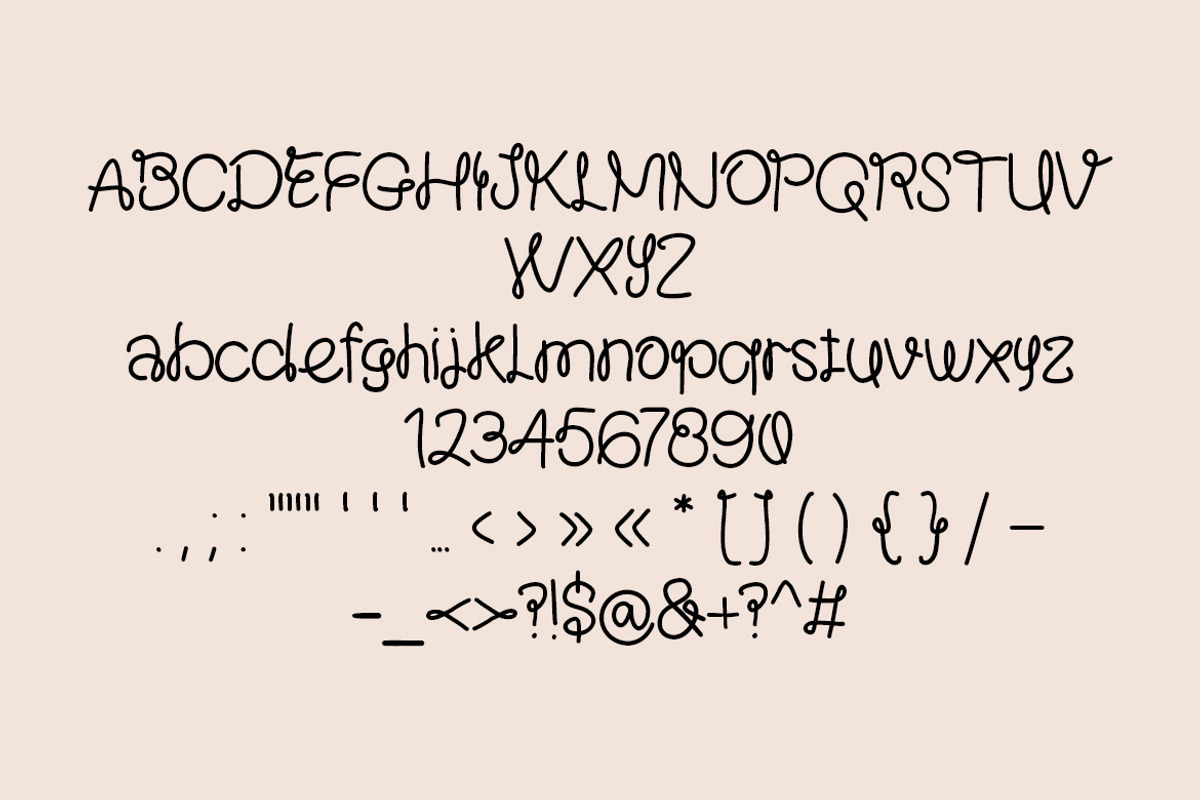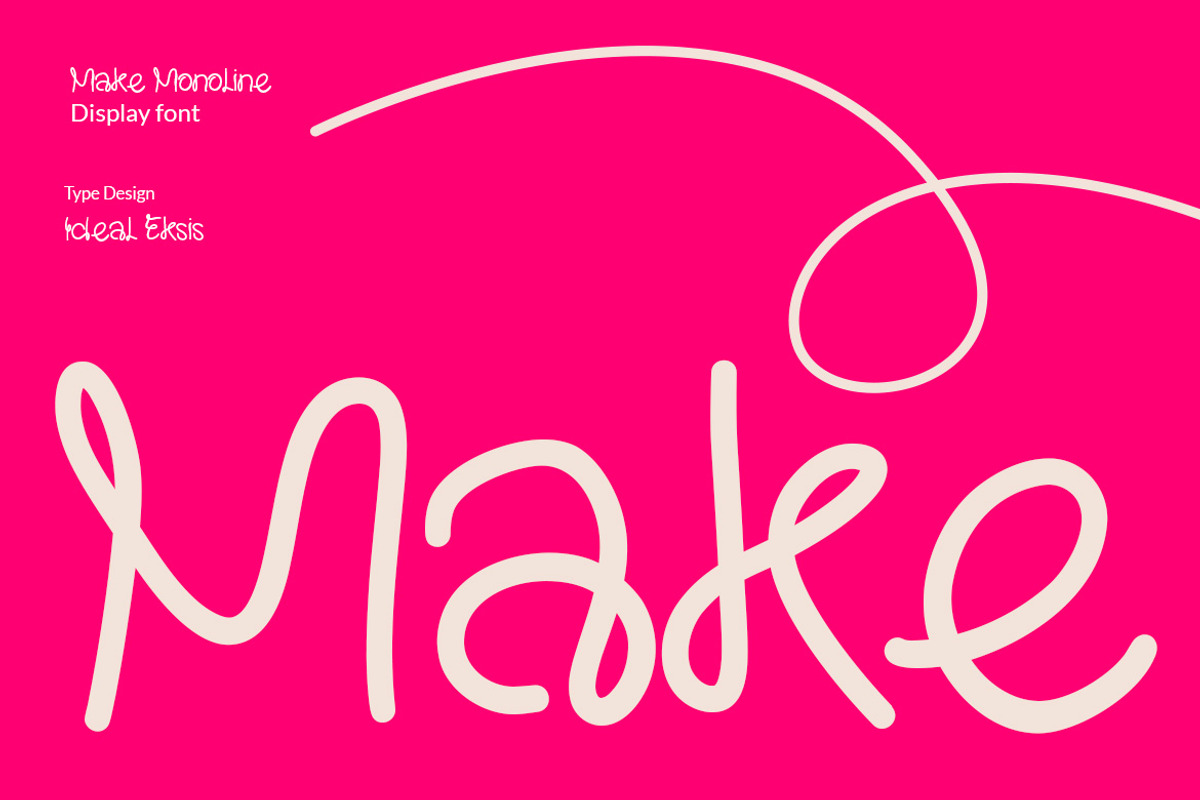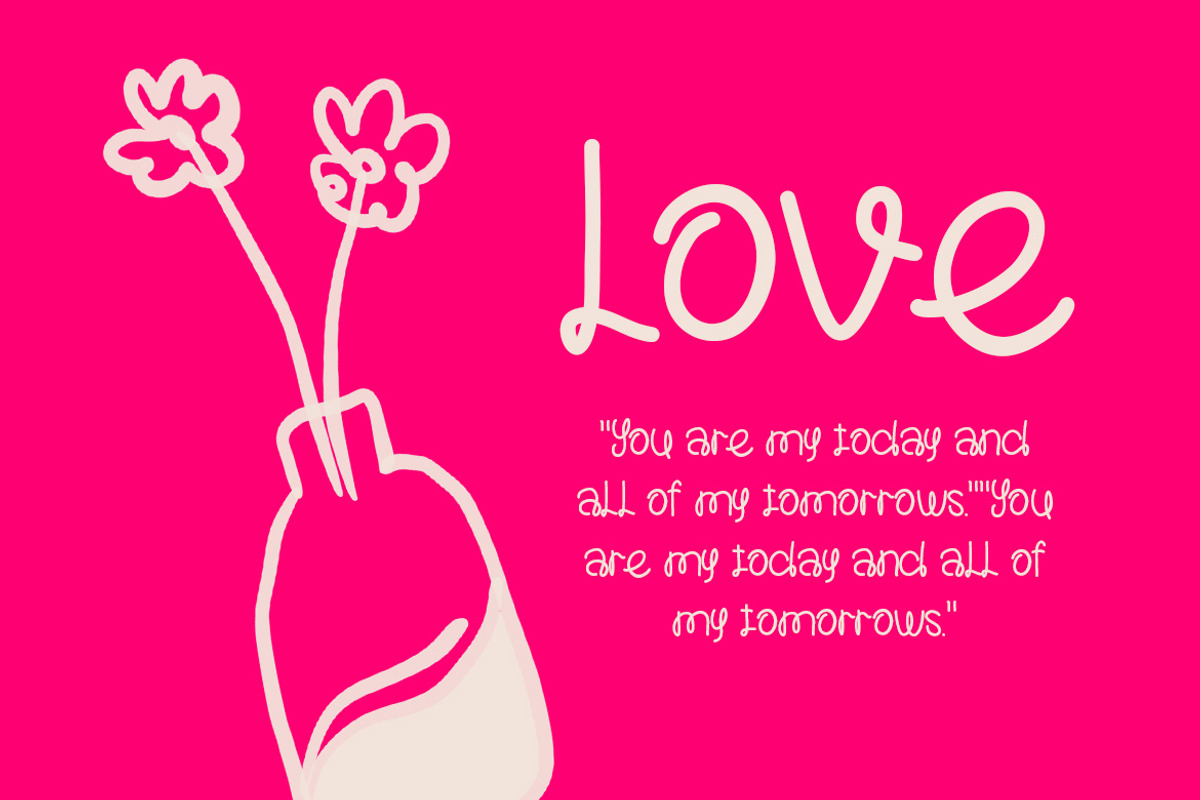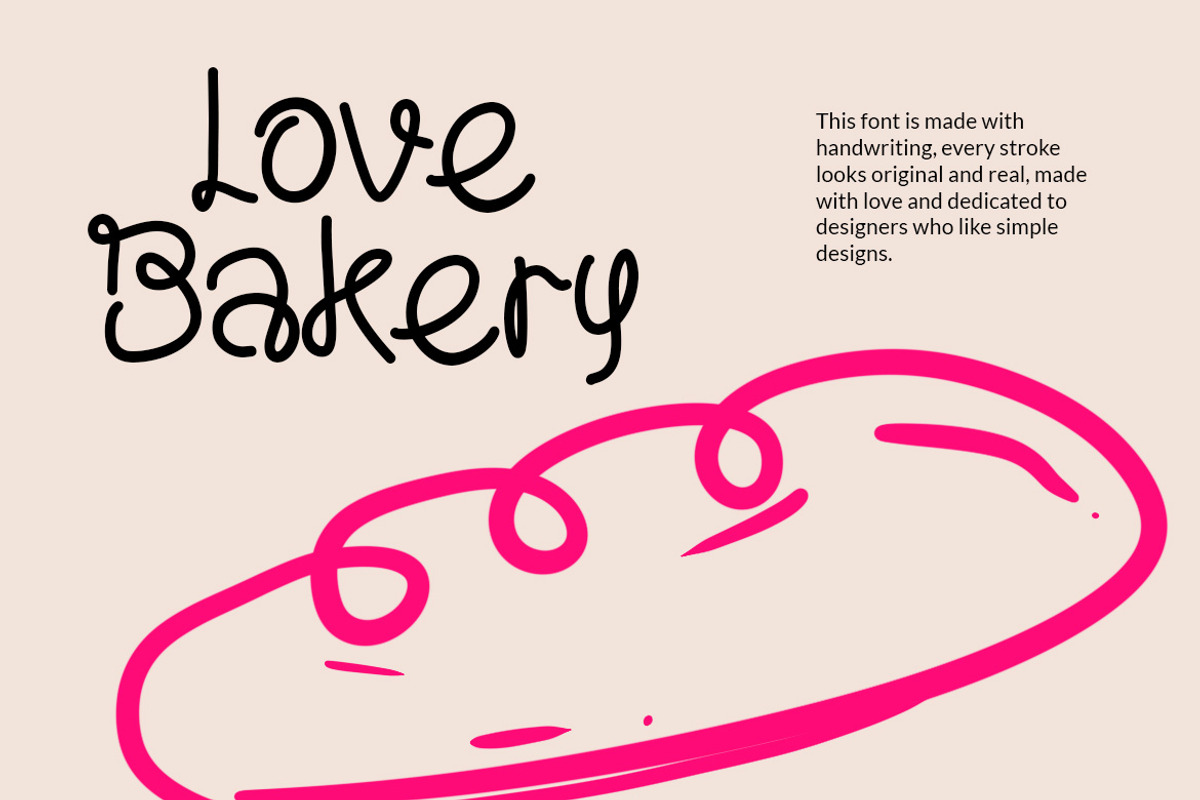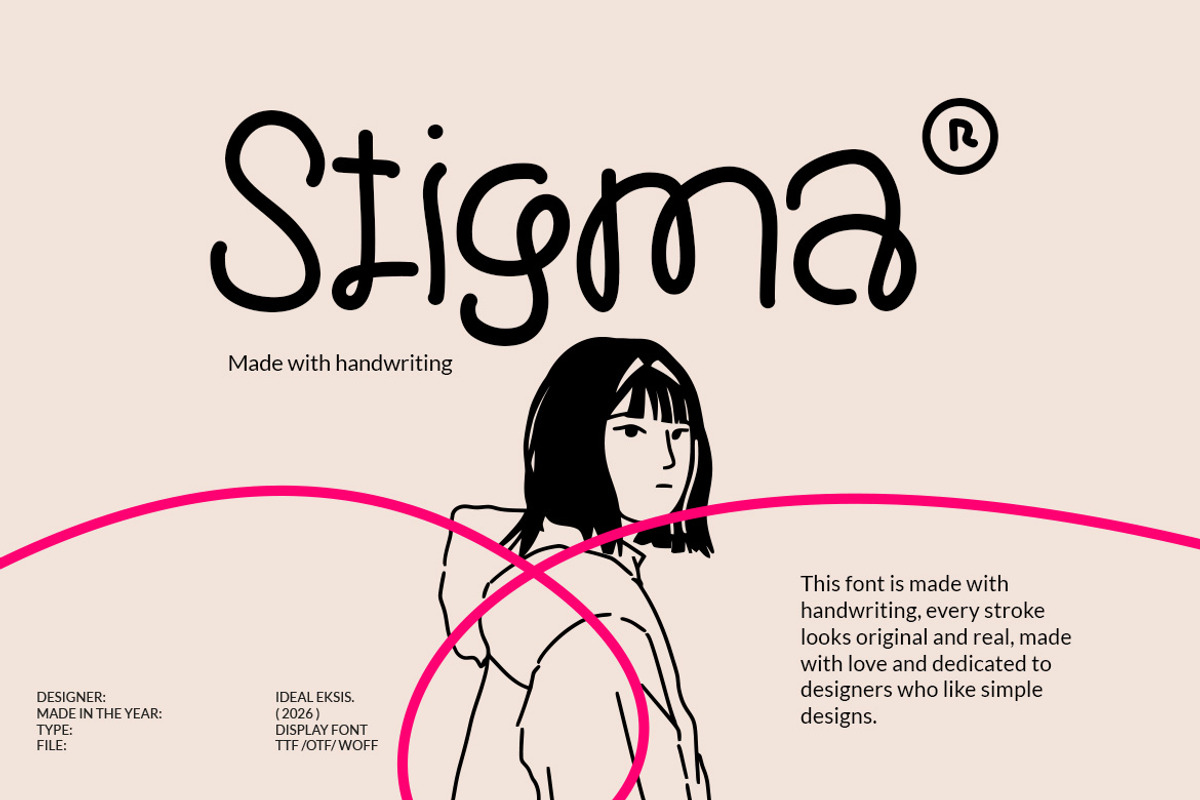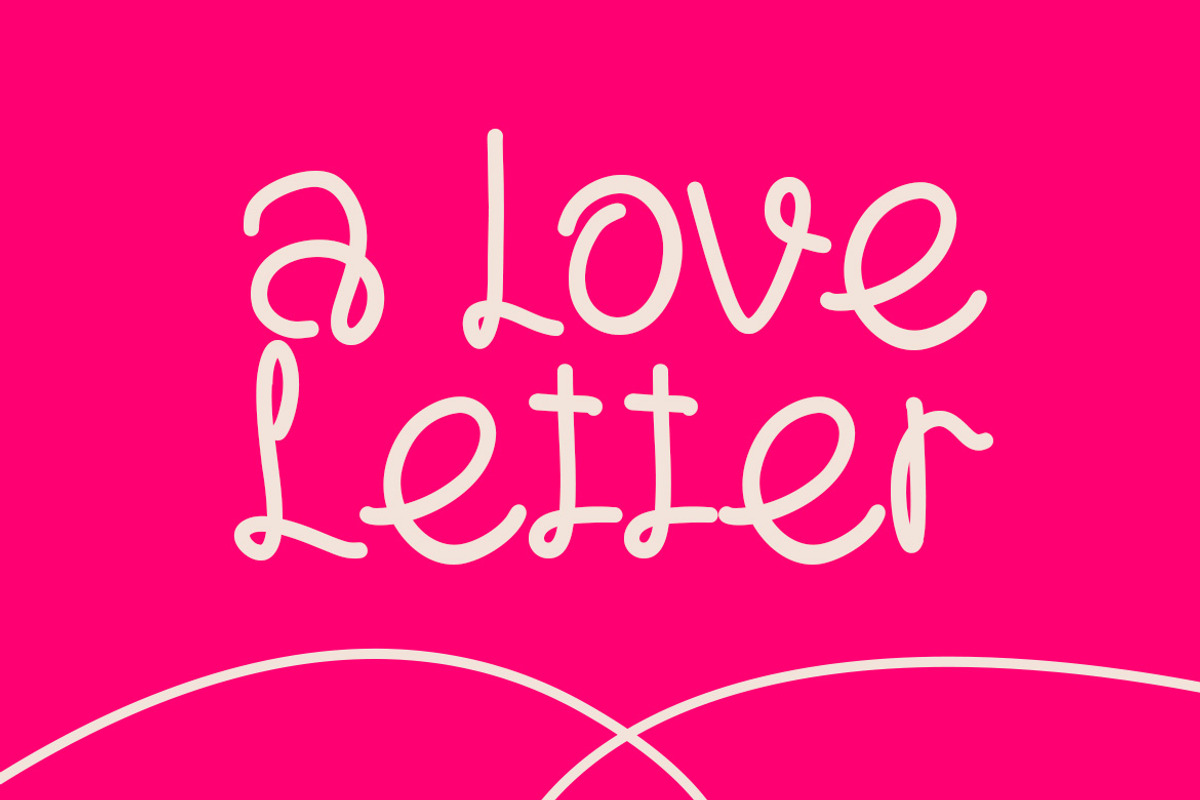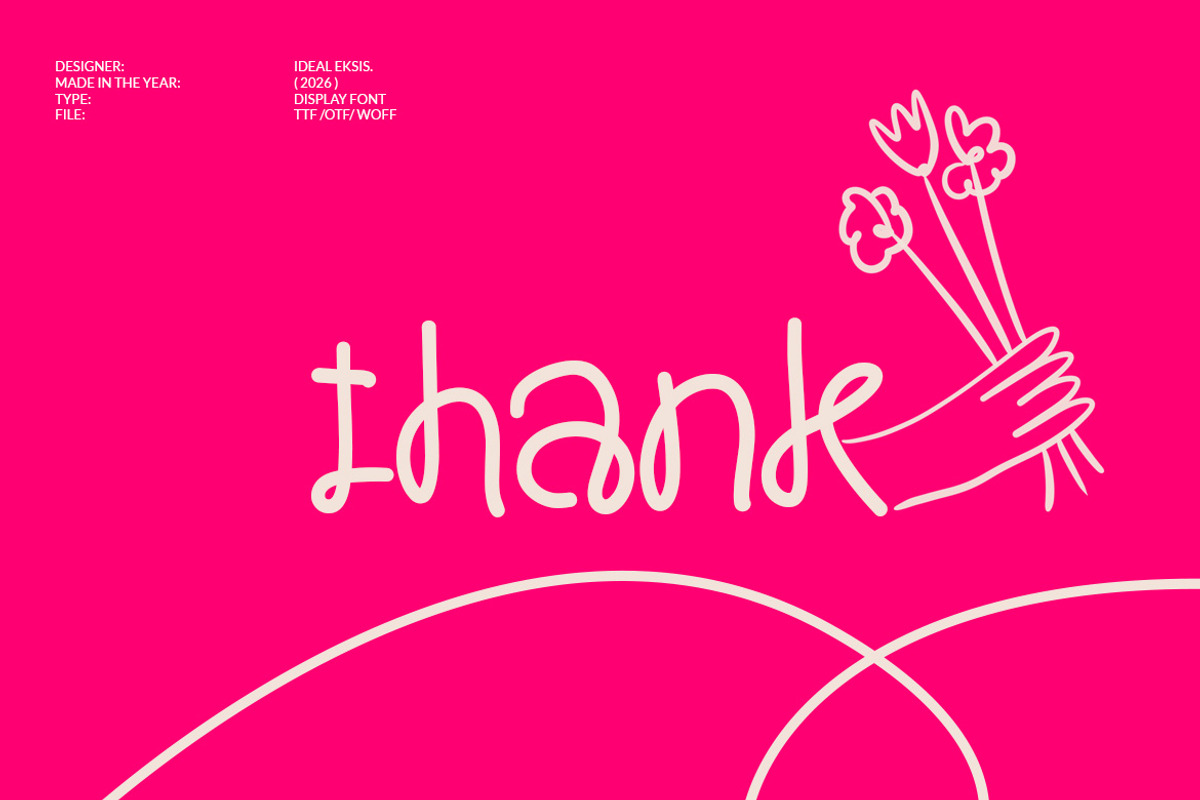
Make
A vibrant and energetic monolinear script font characterized by its consistent stroke weight and fluid, loopy letterforms. The design features rounded terminals and a hand-drawn feel that conveys a sense of friendliness and creativity. Its expressive loops, particularly in the 'M' and 'k', give it a unique personality suitable for bold branding, social media graphics, and creative posters. The overall aesthetic is modern and informal, making it an excellent choice for projects that require a touch of whimsy and movement without sacrificing legibility.